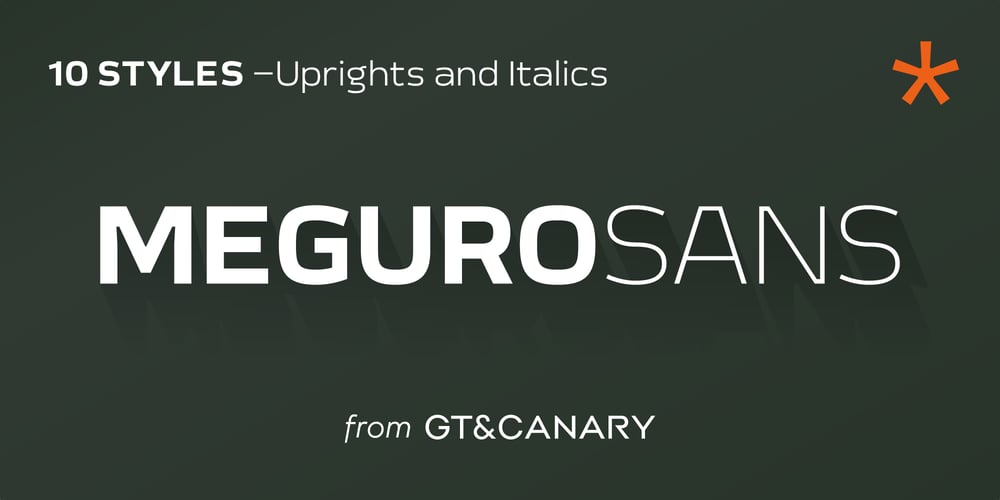
Meguro Sans
Meguro Sans font
Meguro Sans Font Family was designed by Takaaki Goto and published by GT&CANARY. Meguro Sans contains 10 styles and family package options. Meguro Sans has a modern-styled boxy shape that achieves clean, industrial yet friendly style lends itself well to brand building. Its mono-line oriented and very high X-height ensure that it is extremely legible and creates a strong impression.Meguro Sans is Sans serif version of Meguro Serif.The Meguro sans font family is comprised of 10 styles with 5 different weights from light to black, along with matching italics offering possibilities for use in web, print, package and sign design, all with the goal of building an established look for brands in wide range of industries.